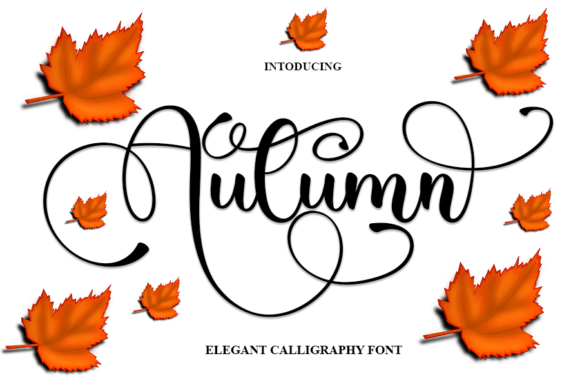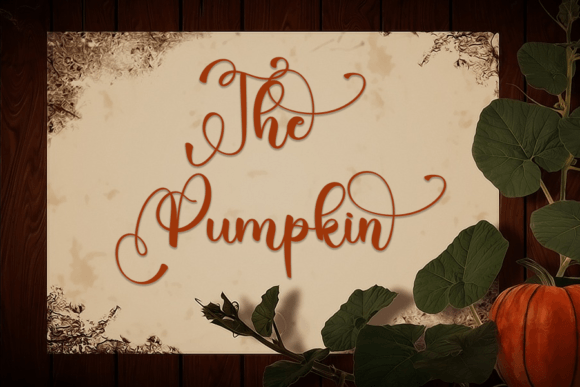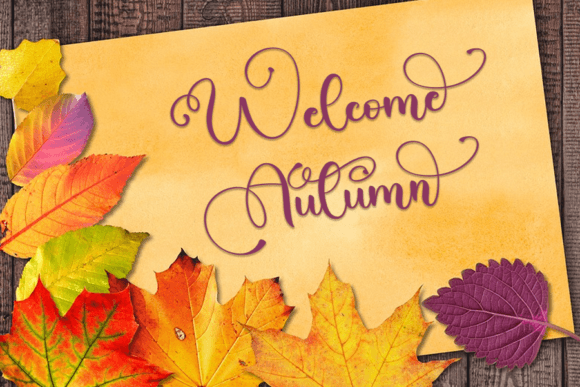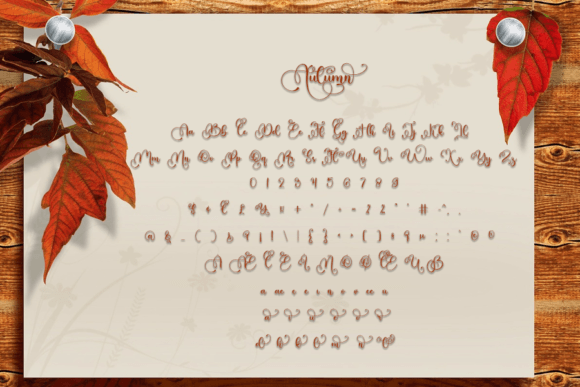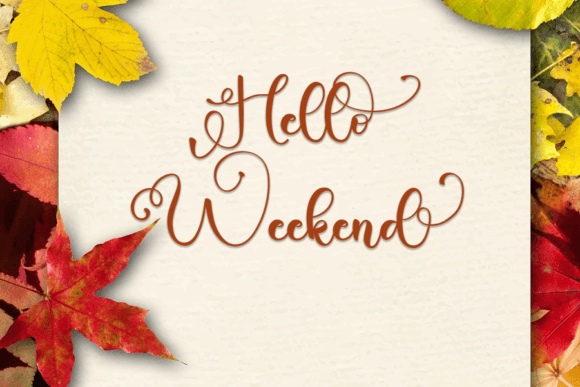
Autumn Font
Autumn is a cool handwritten script font with a modern vibe and spotless form, inspired by classic calligraphy. Not too thin and not too thick, balanced and varied, this font was designed to enhance the beauty of your projects.